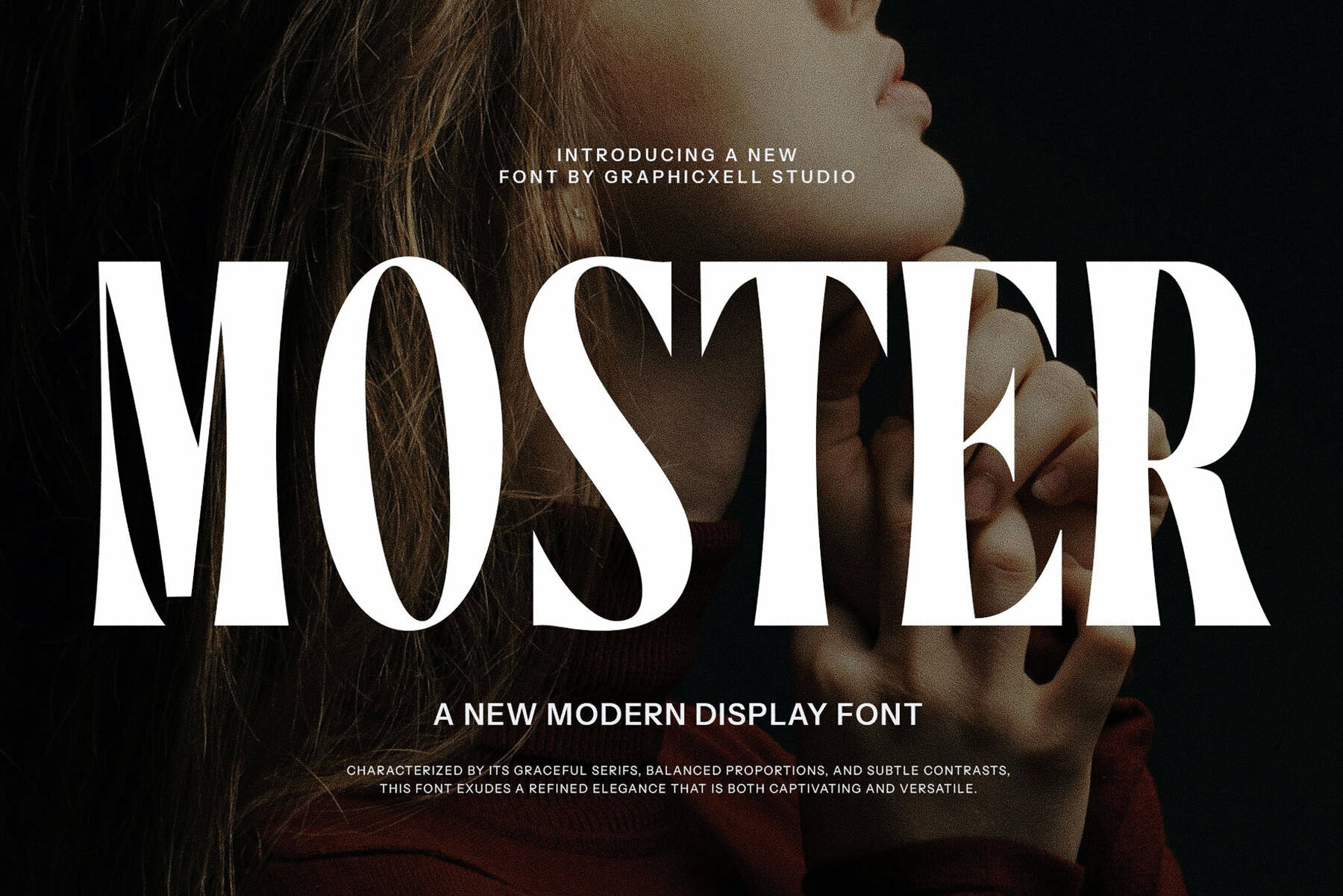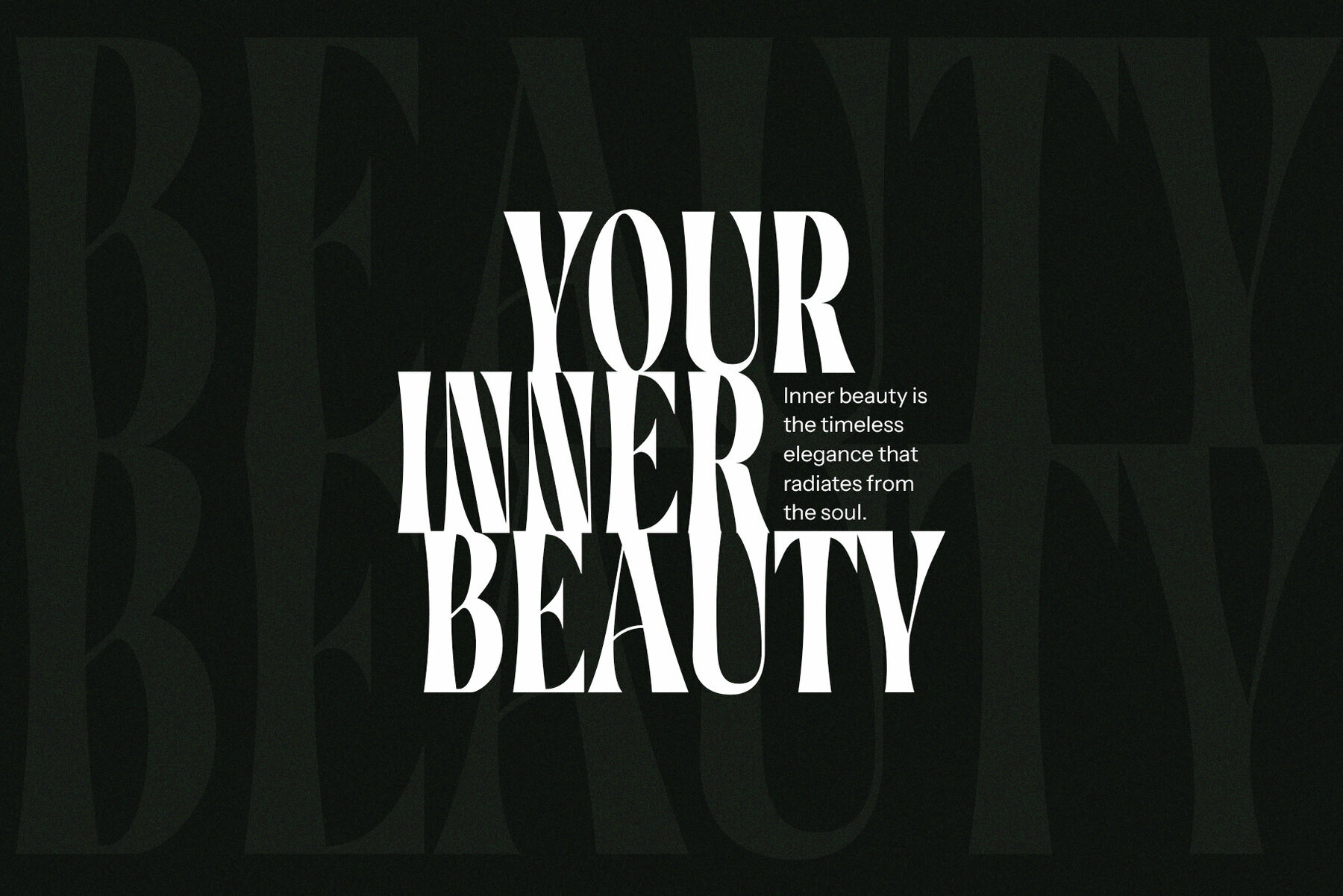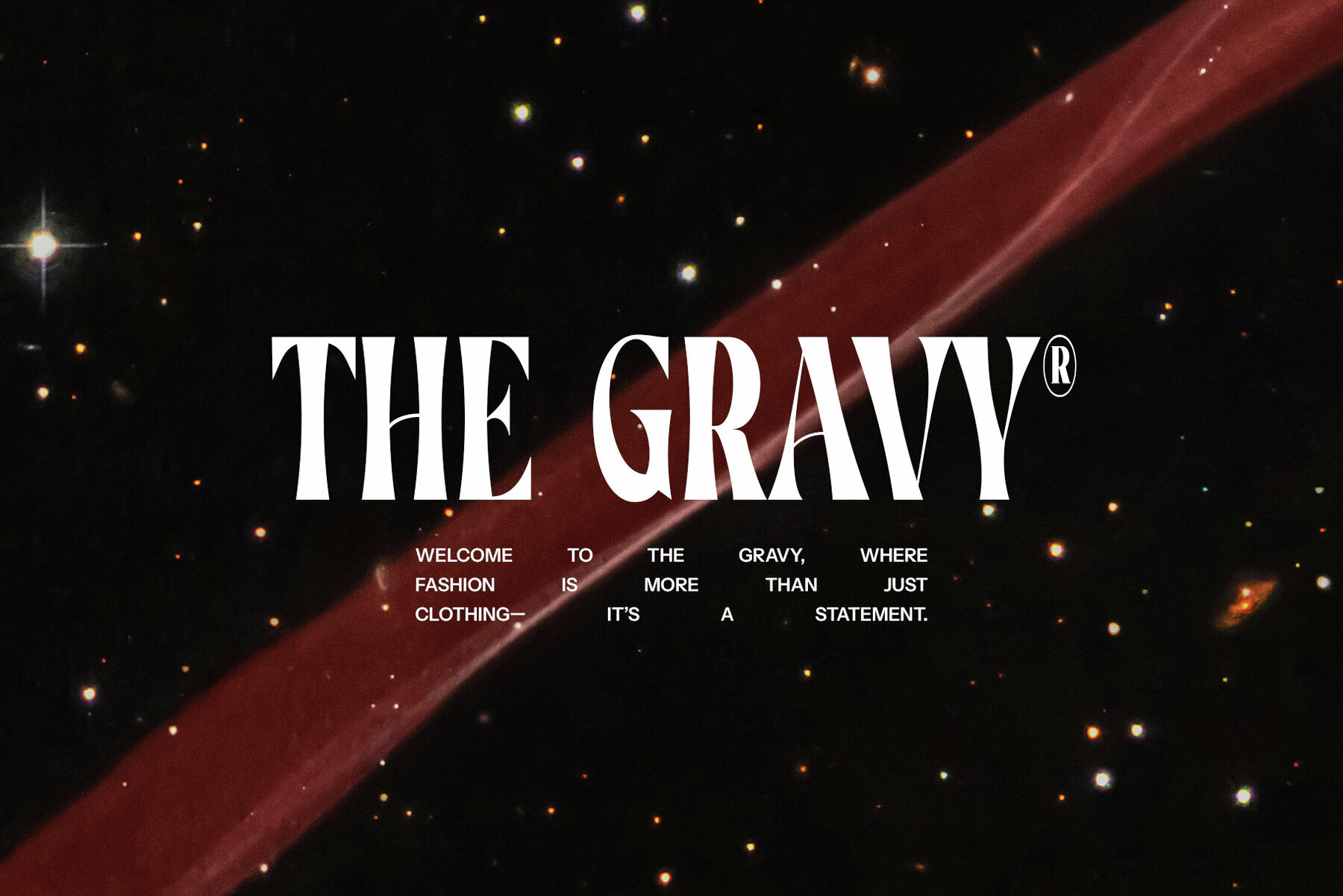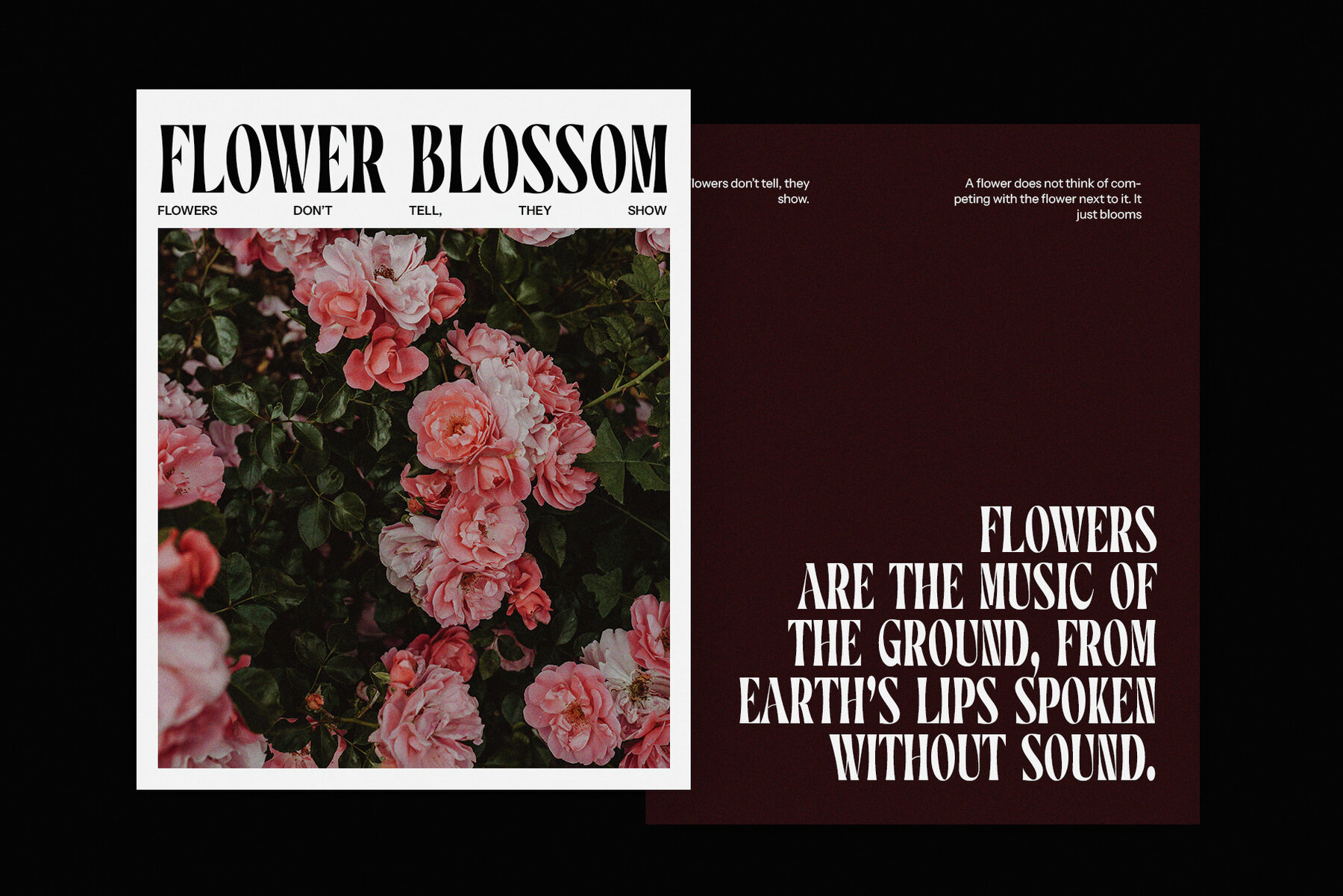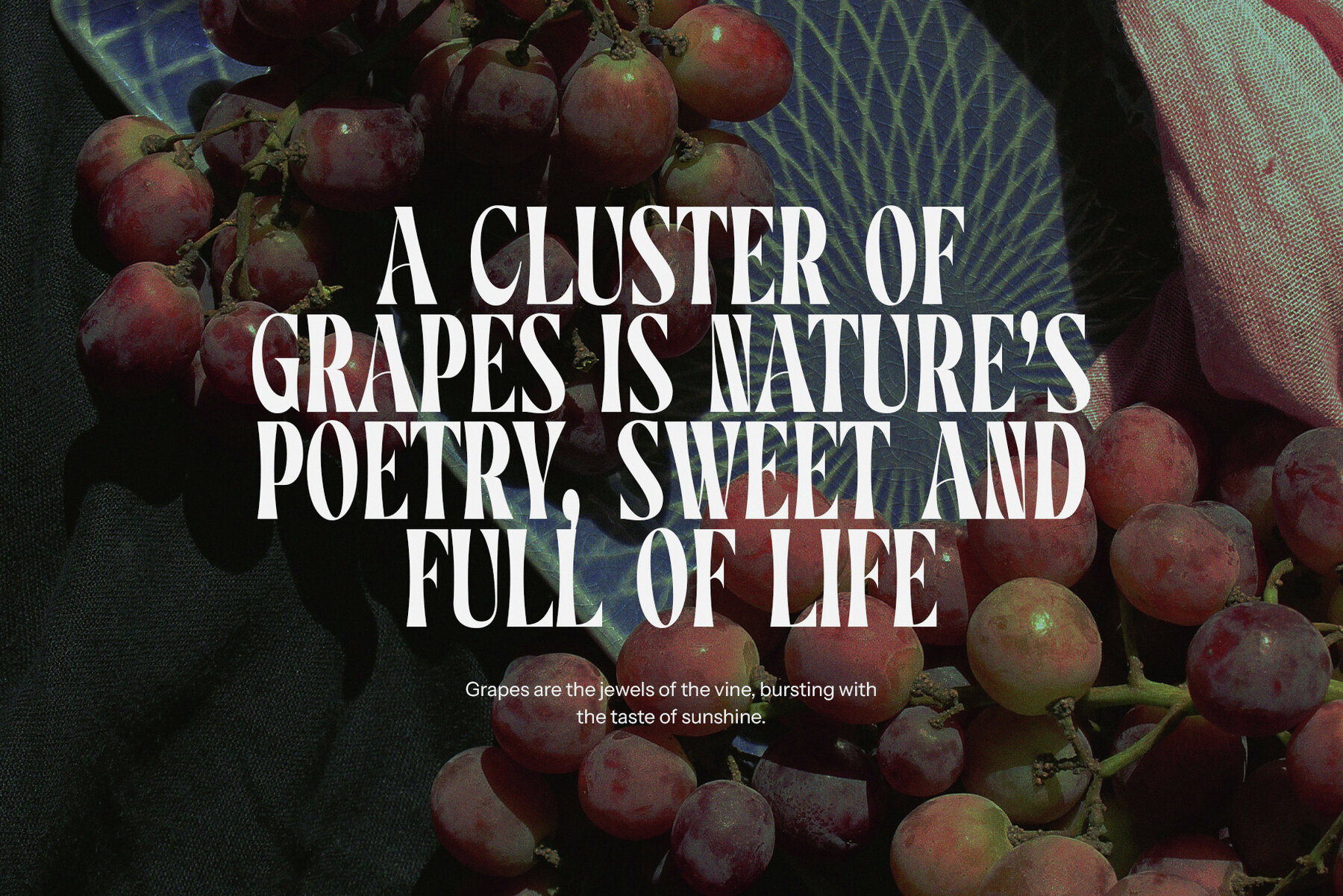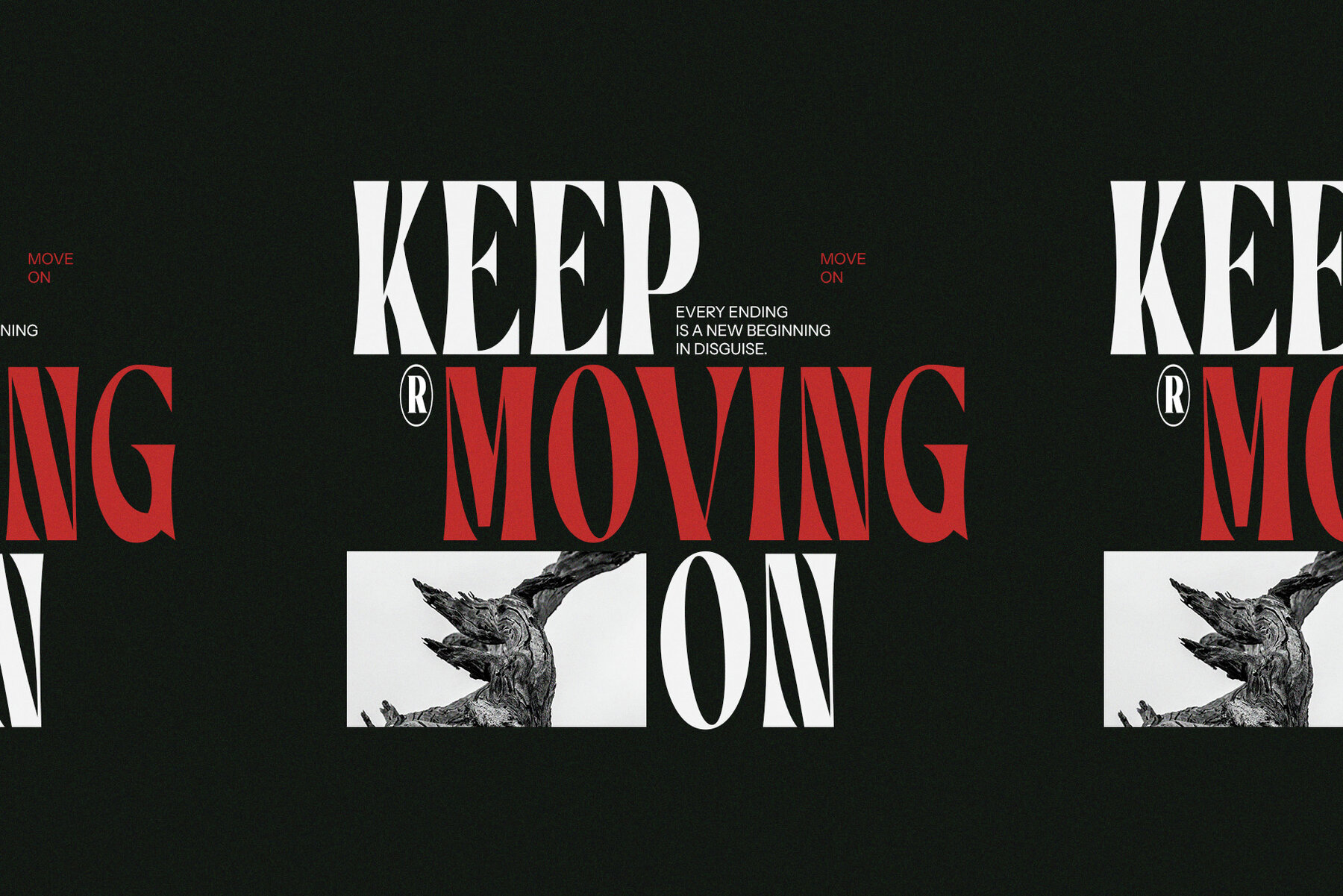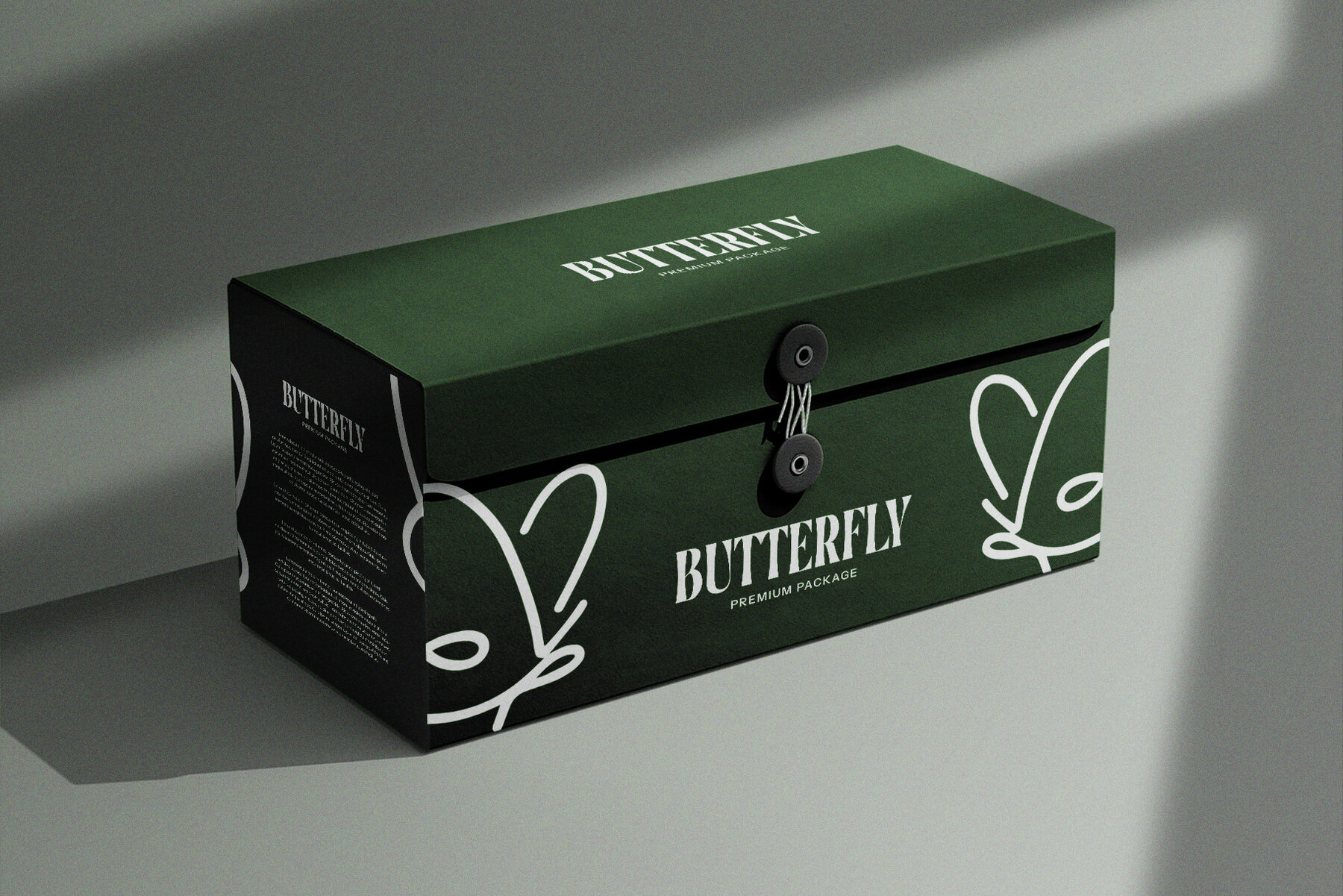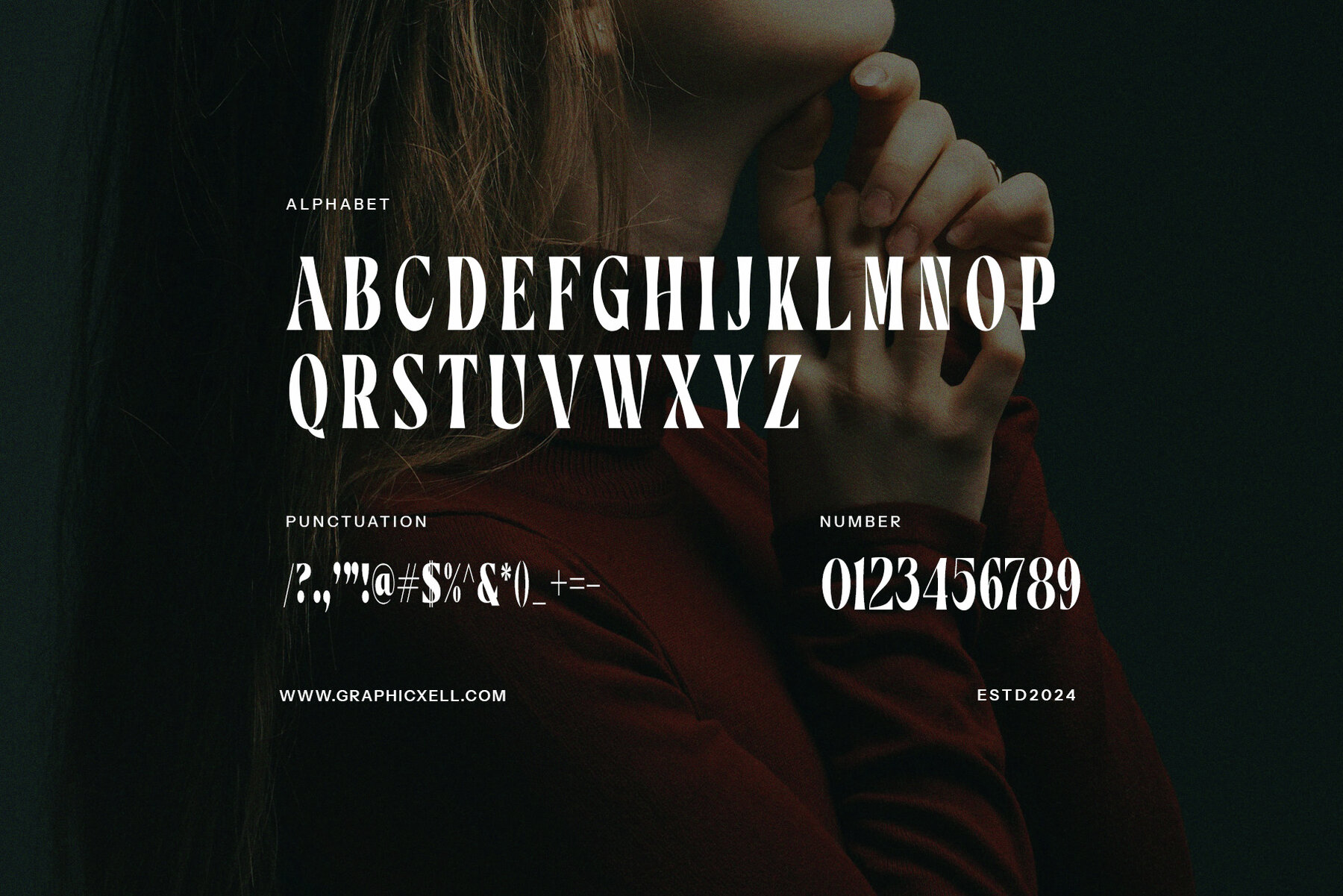
Moster Font
Moster Regular
The Moster Modern Typeface is a sophisticated serif font that adds a fashionable touch to your projects. Its delicate curves and elegant ligatures provide a charming and contemporary feel. Emulating calligraphic influences, this typeface is perfect for beauty designs, elegant crafts, layout designs, ad branding, and templates. The smooth strokes and varied line thickness contribute to its sophisticated appearance.
Ideal for both personal and commercial use, this typeface ensures your designs stand out. Whether you are working on branding, layouts, or any graphic project, the Moster Modern Typeface offers a polished and modern aesthetic, making your work visually appealing and professional.